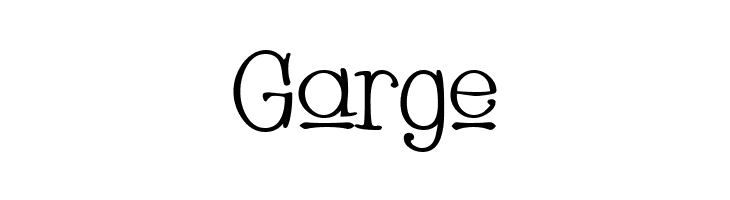
Pink Velvet Font
- Font: Pink Velvet
A whimsical and playful serif font with curly, exaggerated serifs and a hand-drawn feel.
( Font by kingthingsfonts.co.uk )